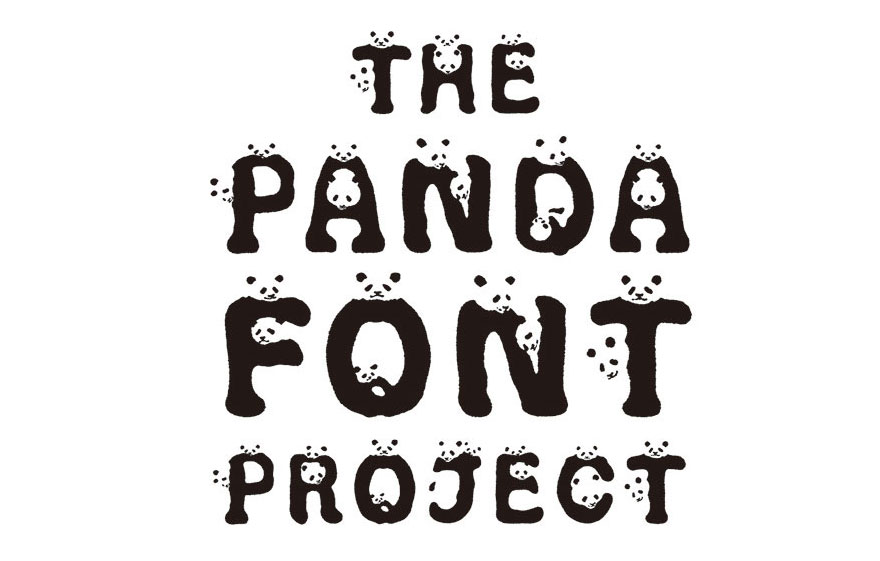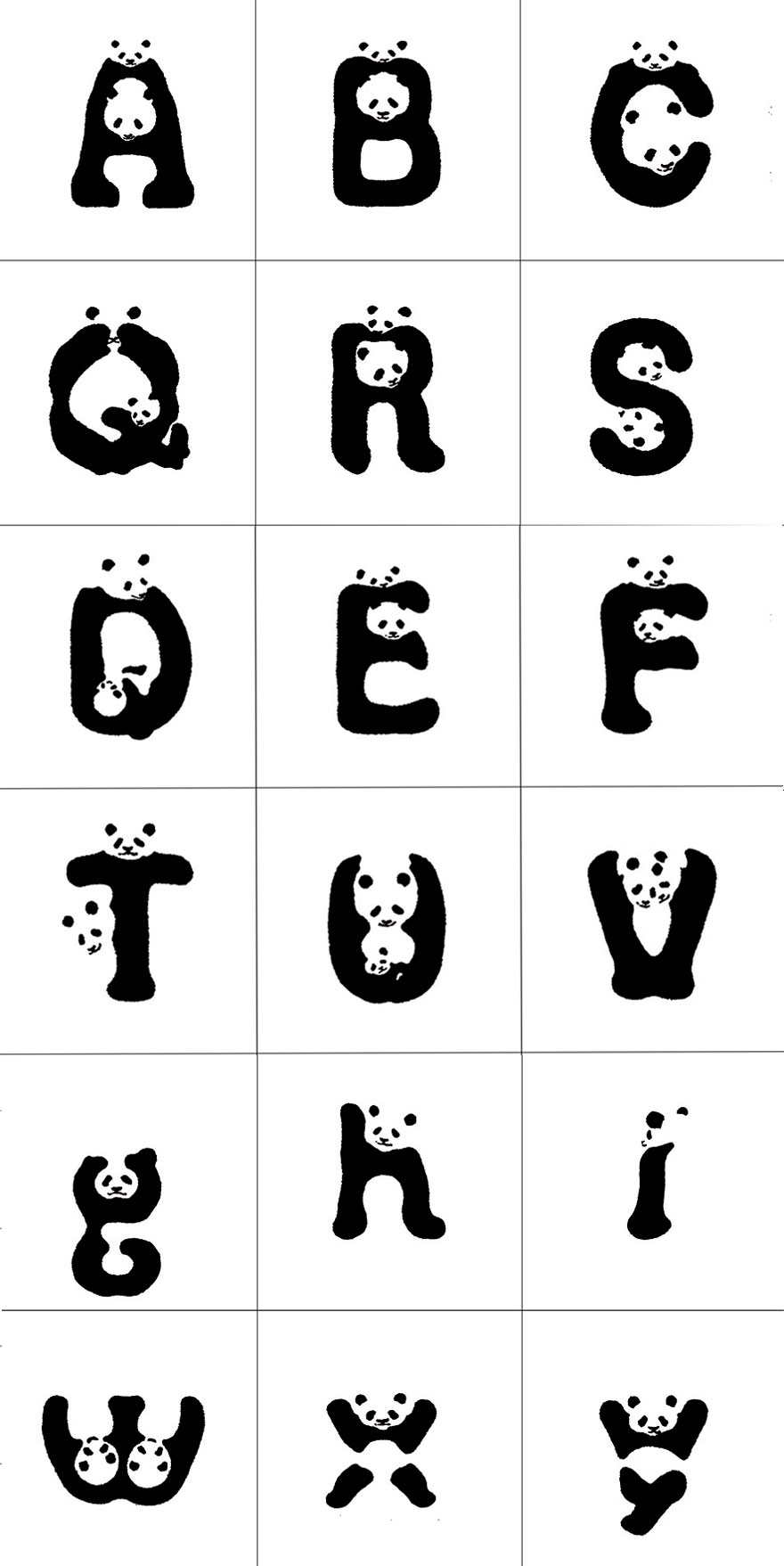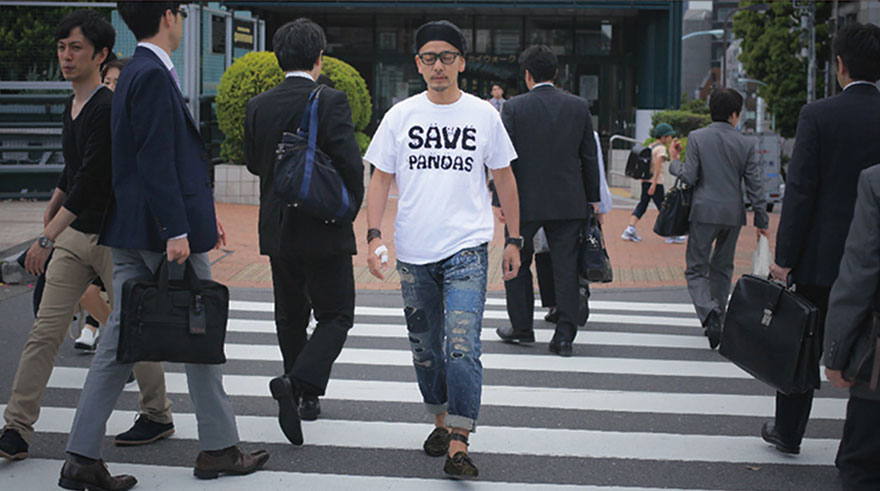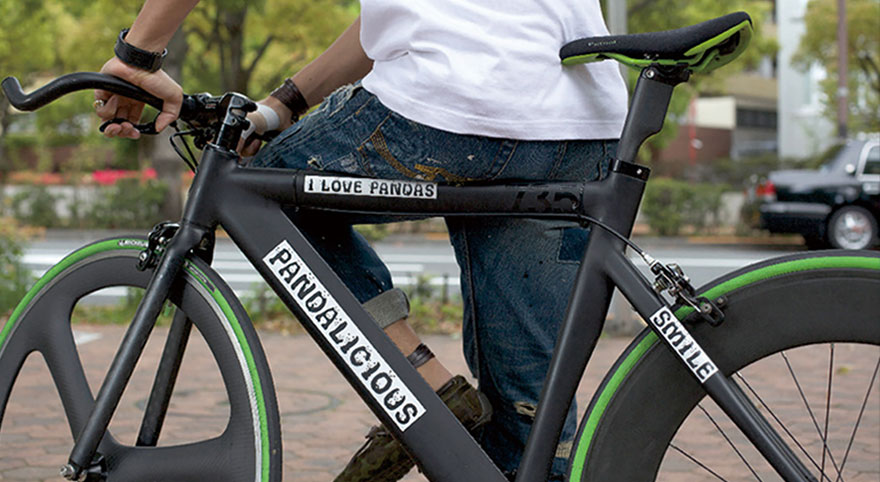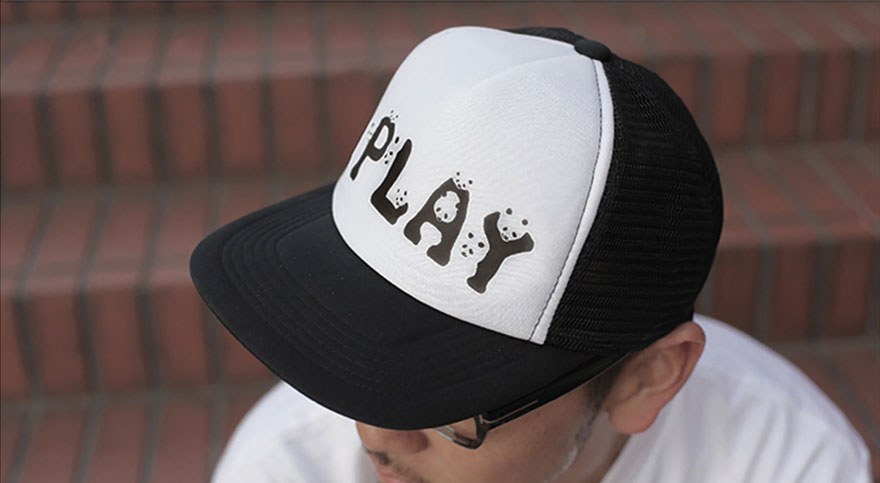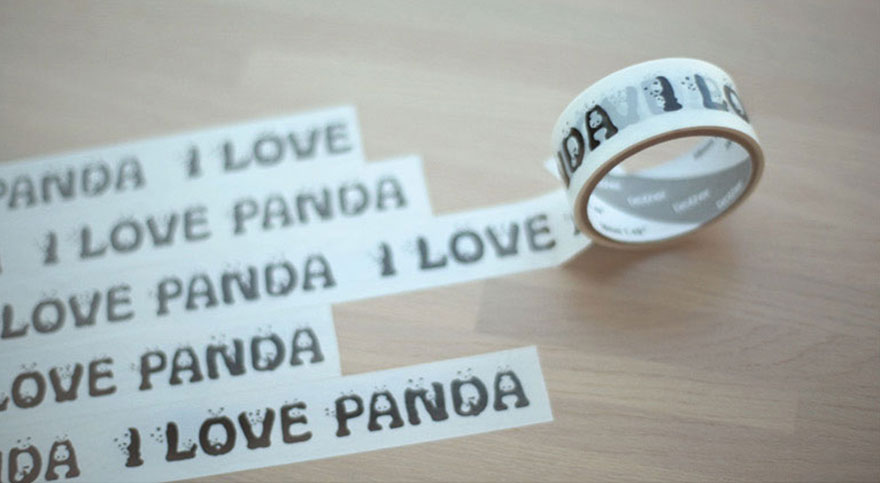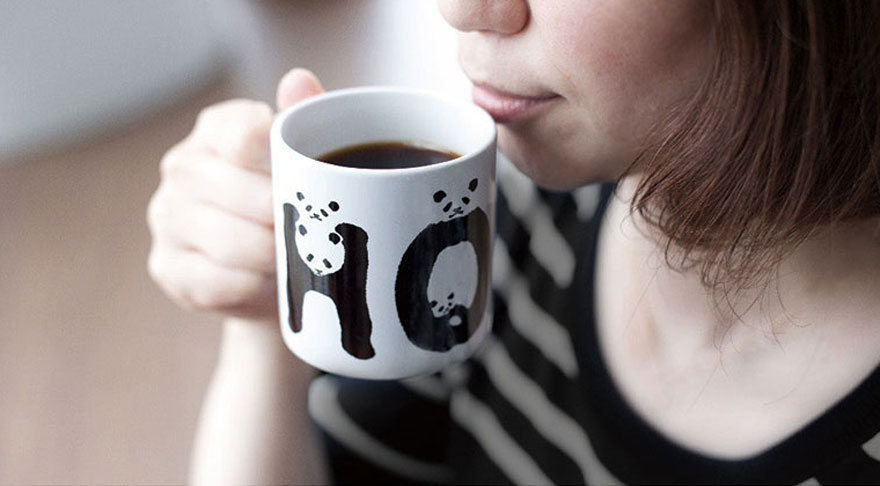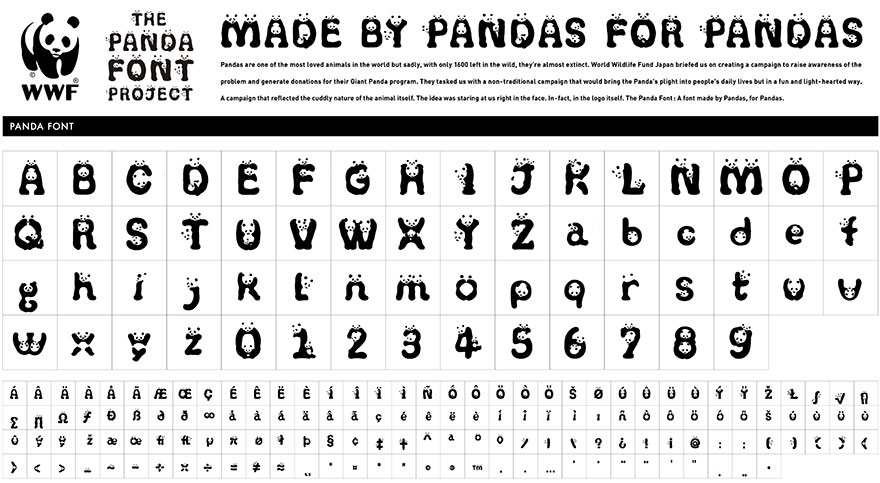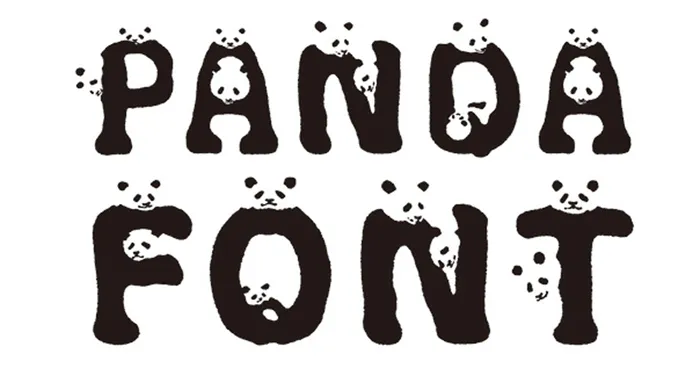
A panda-themed font has been created by WWF Japan to raise awareness and encourage donations for their panda fund-raising campaign. Each character features a stylized panda head, and was designed together with Ogilvy & Mather Japan.
According to the WWF, giant pandas are under severe threat from humans and are considered endangered. Only 1,864 of them exist in the wild. Using this font will help raise awareness of this sad fact and can make an impact on conservation efforts.
There are only 1,864 pandas left in the wild – they’re almost extinct
So WWF Japan created the Panda Font to raise public awareness
By using this font you help make others aware of this issue
And it looks cool on everything
Even a fashion statement can raise awareness
Print it, use it, share it!
Make your workplace aware, too!